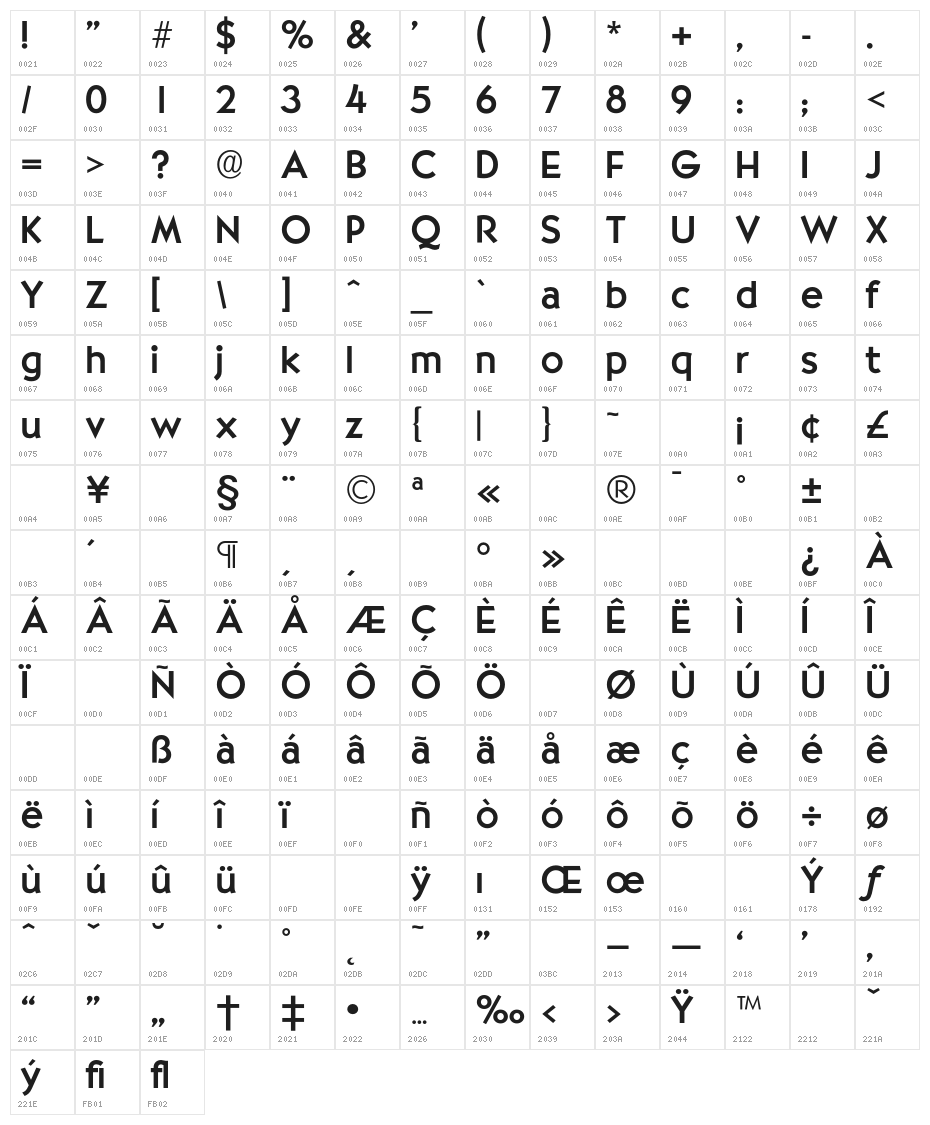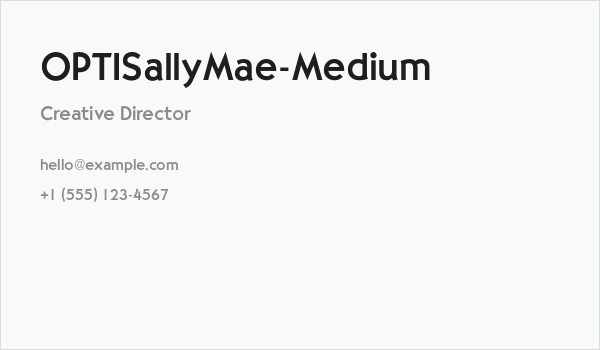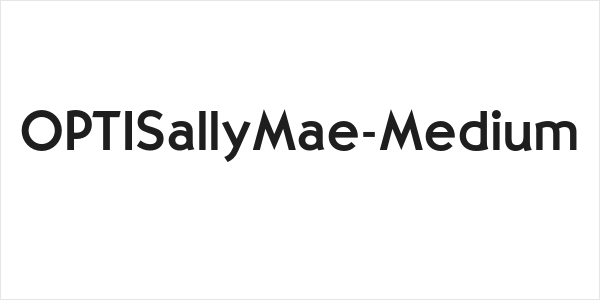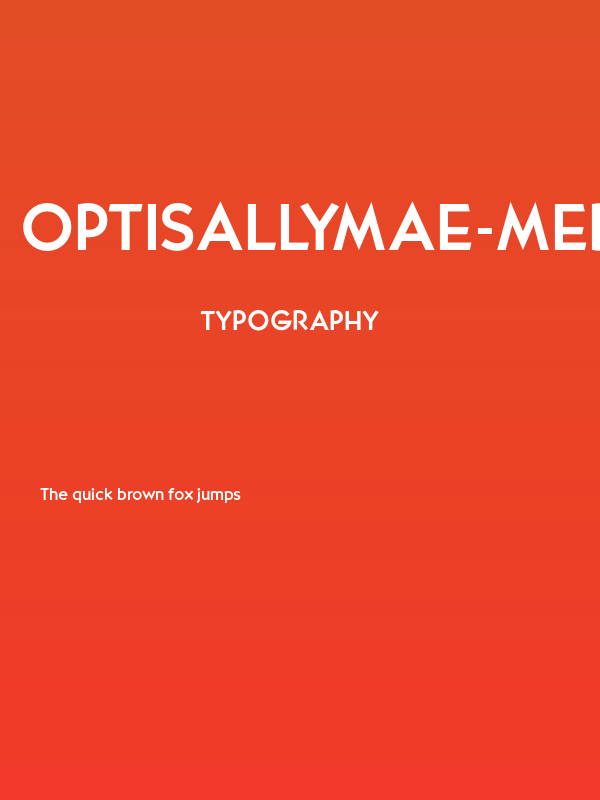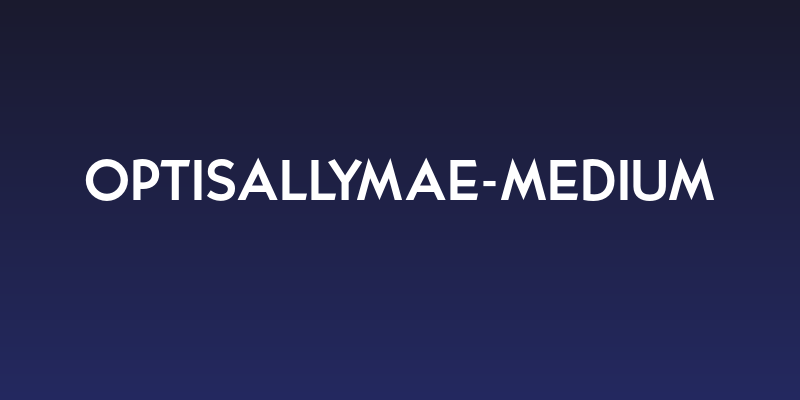
OPTISallyMae-Medium Font
OPTISallyMae-Medium Description
This typeface features a clean and modern sans-serif design with a geometric structure. The characters are well-balanced with a uniform stroke width, providing a harmonious and professional appearance. The uppercase letters are bold and impactful, while the lowercase letters maintain a friendly and approachable feel. The numerals are clear and easy to read, making them suitable for various applications. The special characters are distinct and well-integrated into the overall design, ensuring versatility in usage.
Proposed ProjectsIdeal for branding, advertising, digital interfaces, and editorial design projects.